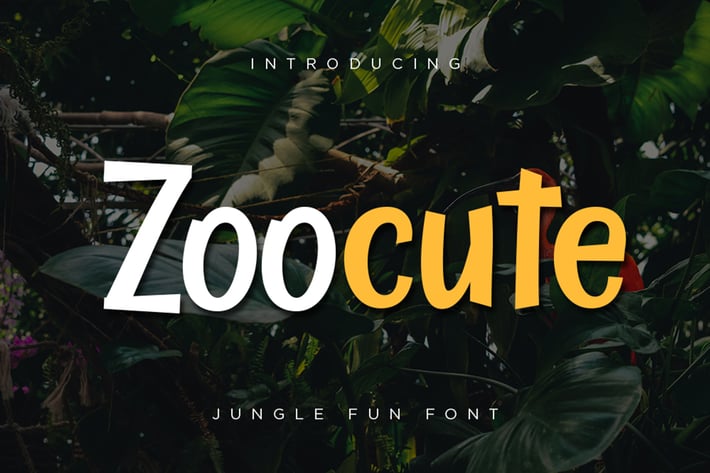
Zoocute Jungle Fun Font
Welcome to the jungle will sound better with the Zoocute Jungle Fun Font. Inspired by the zoo vibe and visual to get the exact and precise fun zoo concept for your design. Perfectly fit for storybook, kids meal, food, snack, fun events, kids logo, casual branding, etc.